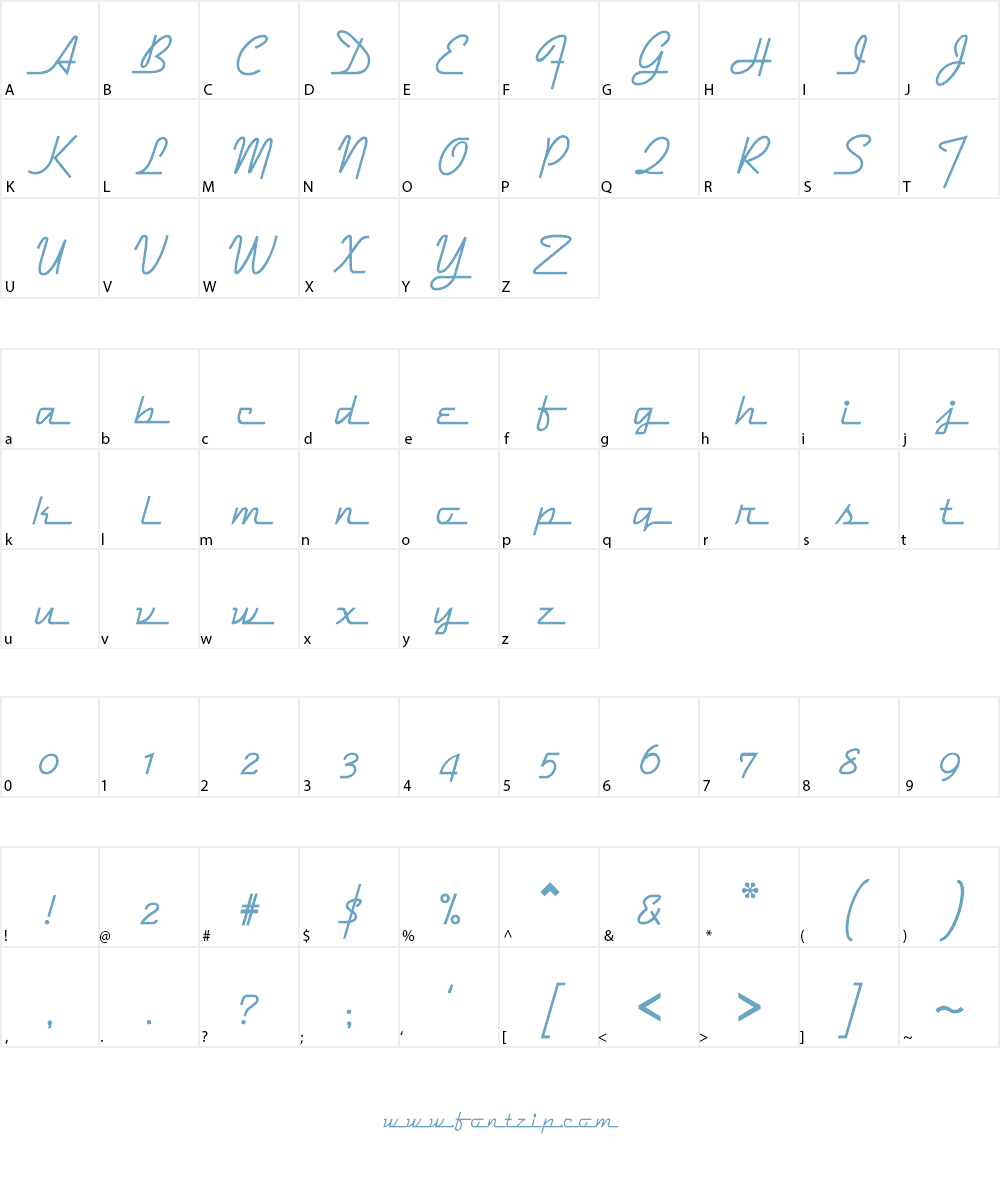
Named after R. Buckminster Fuller’s concept car and map and house (jeez — the guy even designed a Dymaxion bathroom) from the 30’s. DYnamic MAXimum tensION … fluid, aerodynamic, on the move.